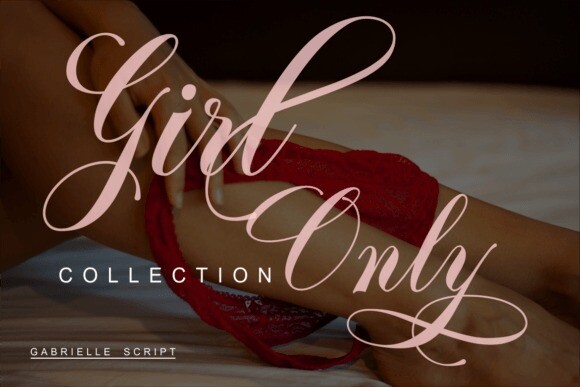
Gabrielle Font
Gabrielle | Calligraphy script font with a romantic and exquisite flair, perfect for your most creative design projects! This font is PUA encoded, which means you can access all of the glyphs and swashes with ease!